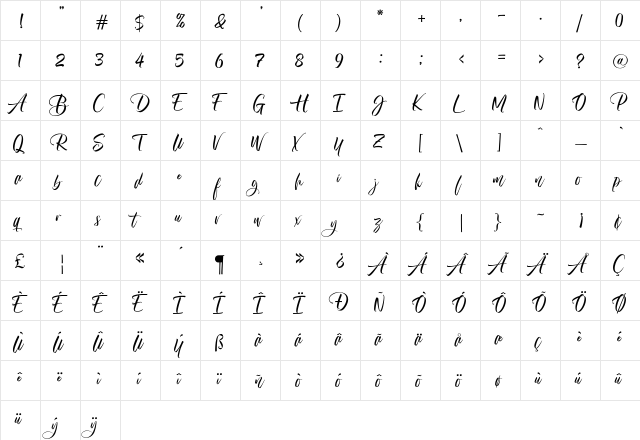
Almere Script Regular
Design Context for Almere Script Typeface
Almere Script flows with the natural rhythm of handwritten lettering, making it ideal for designs that call for warmth and personal expression.
Font Pairing: Combine Almere Script with a simple geometric sans for maximum contrast — the tension between flowing curves and clean structure is a classic typographic pairing.
Pro Tip: Pair Almere Script with a clean sans-serif for supporting text. The contrast between fluid script and geometric structure creates an elegant typographic hierarchy.